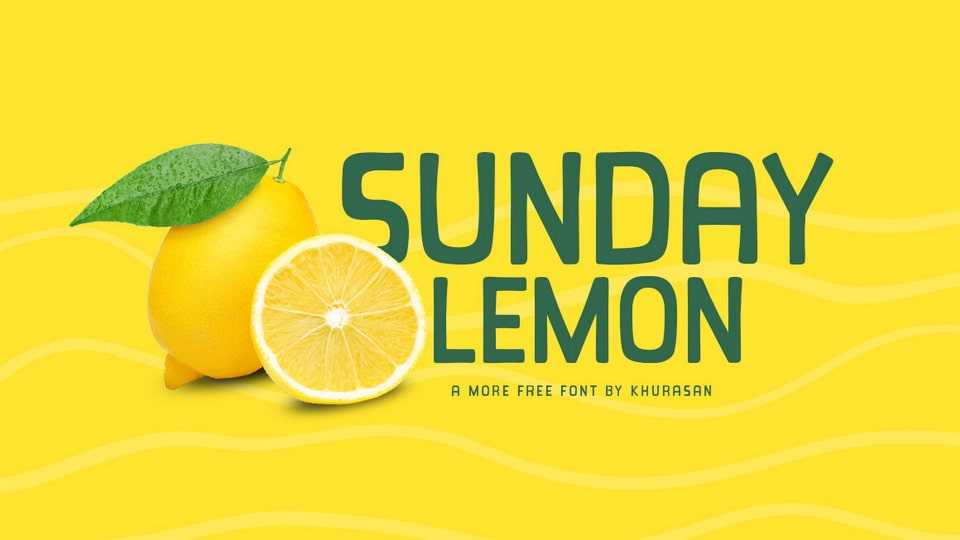
Download Sunday Lemon font, the typeface that combines the charm of handwritten text with the boldness of block letters. Sunday Lemon is a lighthearted handwritten font that strikes the perfect balance between casual and structured.